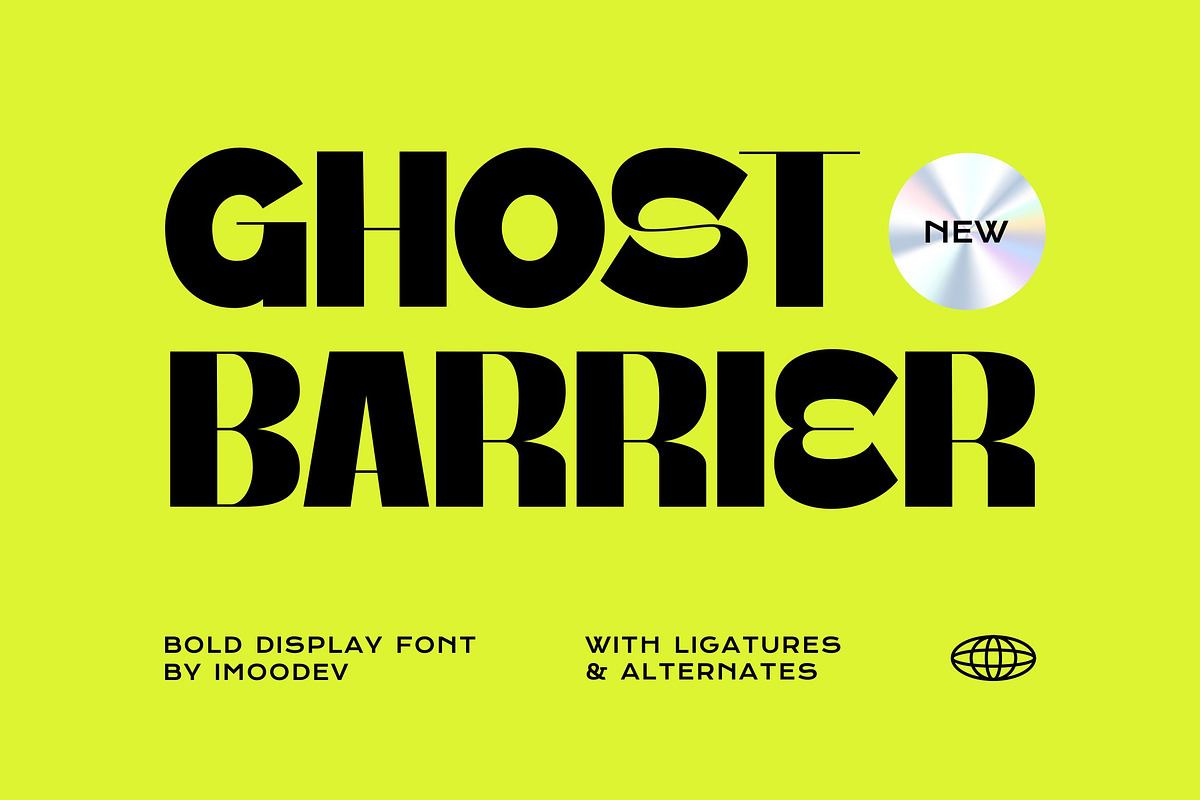
Ghost Barrier Font Free Download is a bold, distinctive typeface with a futuristic and edgy vibe. Featuring sharp, angular letterforms and unique design elements, this font is perfect for creating high-impact, creative designs like logos, posters, movie titles, and more. Its dynamic look makes it especially suitable for projects that require a strong, modern, and unconventional aesthetic.
Ghost Barrier Font Free Download is designed to make a statement, capturing attention with its bold lines and unconventional style. Whether you're designing for a tech brand, gaming project, or any design that calls for a powerful, distinctive look, this font brings a sense of mystery and strength to your typography.